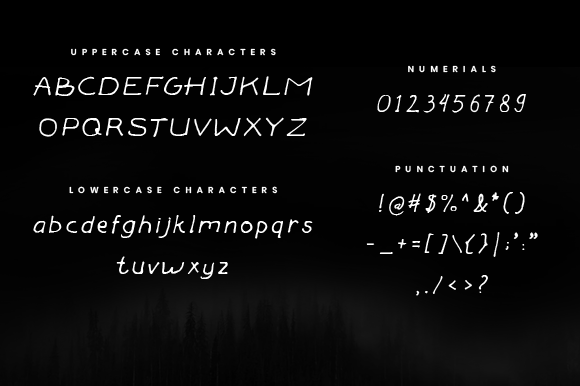
Discover the Charm of Forestia Handed Font: A Natural and Raw Script Font for Outdoorsy Projects
Are you looking for a font that captures the essence of nature and the great outdoors? Do you want to add a touch of calmness and sincerity to your design projects? Look no further than Forestia Handed, a beautiful script font that’s perfect for any outdoorsy or adventure-themed projects.
What is Forestia Handed Font?
Forestia Handed is a natural and raw script font that’s designed to evoke feelings of serenity and connection to nature. With its unique, hand-crafted aesthetic, this font is ideal for designers and crafters who want to add a personal touch to their work. Whether you’re creating a logo, branding materials, or marketing collateral, Forestia Handed is the perfect choice for projects that require a sense of authenticity and earthiness.
Key Features of Forestia Handed Font
So, what makes Forestia Handed font so special? Here are some of its key features:
- Natural and Raw Aesthetic: Forestia Handed has a distinctly natural and raw aesthetic that’s reminiscent of handwritten notes and outdoor signage.
- Unique Character Set: This font features a unique character set that’s designed to evoke a sense of calmness and sincerity.
- Hand-Crafted Look: Forestia Handed has a hand-crafted look that’s perfect for designers who want to add a personal touch to their work.
- Versatile: This font is versatile and can be used for a wide range of design projects, from logos and branding materials to marketing collateral and packaging.
Why Choose Forestia Handed Font?
So, why should you choose Forestia Handed font for your design projects? Here are just a few reasons:
- Evokes Associations with Nature: Forestia Handed font is designed to evoke associations with nature, calmness, and sincerity. If you’re working on a project that requires a natural and earthy aesthetic, this font is the perfect choice.
- Adds a Personal Touch: With its hand-crafted look and unique character set, Forestia Handed font adds a personal touch to any design project.
- Perfect for Outdoorsy Projects: Whether you’re working on a project for an outdoor gear company, a nature-based non-profit, or a travel brand, Forestia Handed font is the perfect choice.
- Pair with Other Fonts: Forestia Handed font pairs well with other fonts, including sans-serif fonts and serif fonts. Experiment with different pairings to find the one that works best for your project.
- Use for Headings and Titles: Forestia Handed font is perfect for headings and titles. Use it to add a touch of elegance and sophistication to your design projects.
- Experiment with Colors: Forestia Handed font looks great in a variety of colors, from earthy tones like green and brown to bold colors like blue and red. Experiment with different colors to find the one that works best for your project.
Forestia Handed font is a beautiful script font that’s perfect for any outdoorsy or adventure-themed projects. With its natural and raw aesthetic, unique character set, and hand-crafted look, this font is sure to evoke associations with nature, calmness, and sincerity. Whether you’re a designer or crafter, Forestia Handed font is a great choice for any project that requires a personal touch and a connection to the great outdoors.